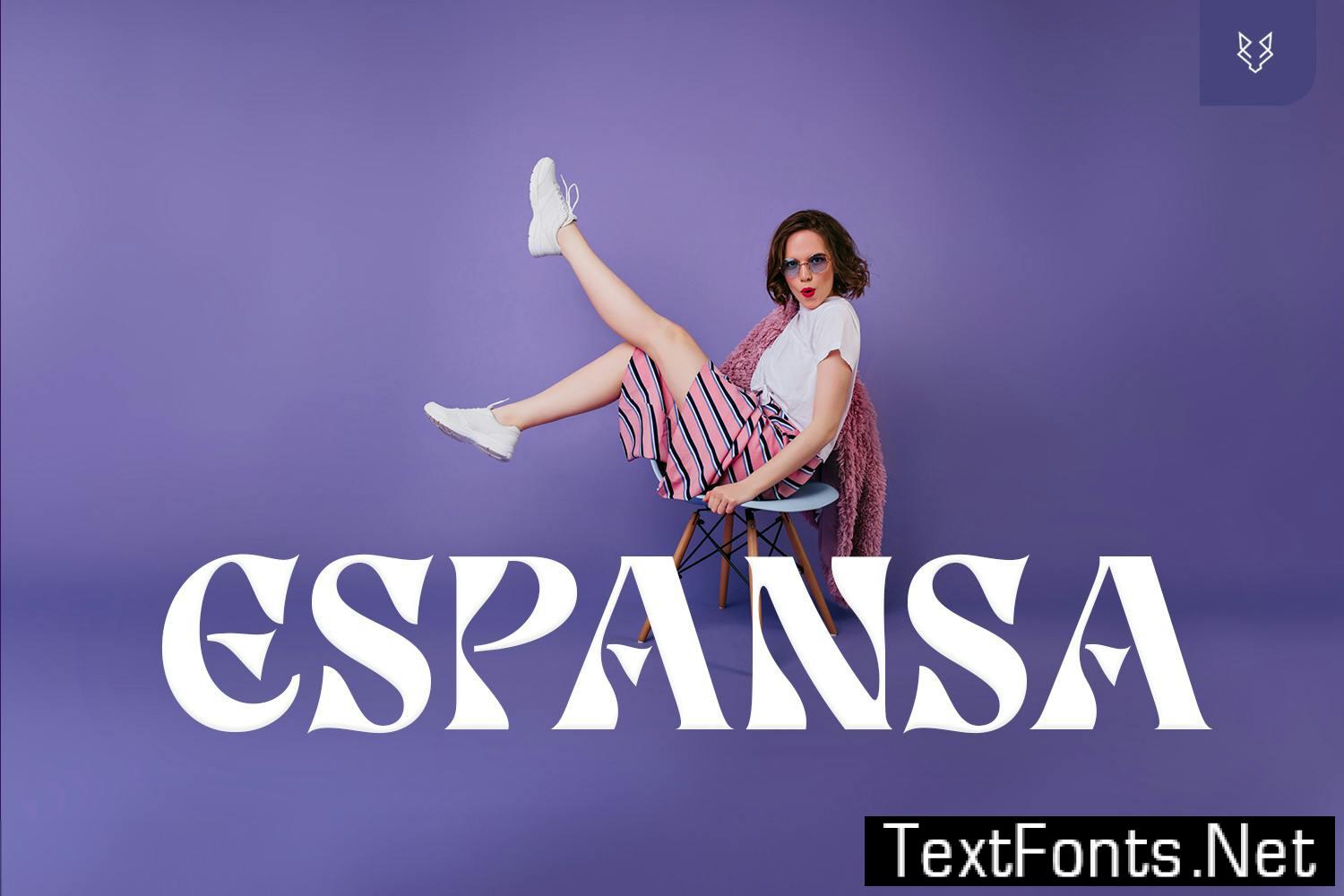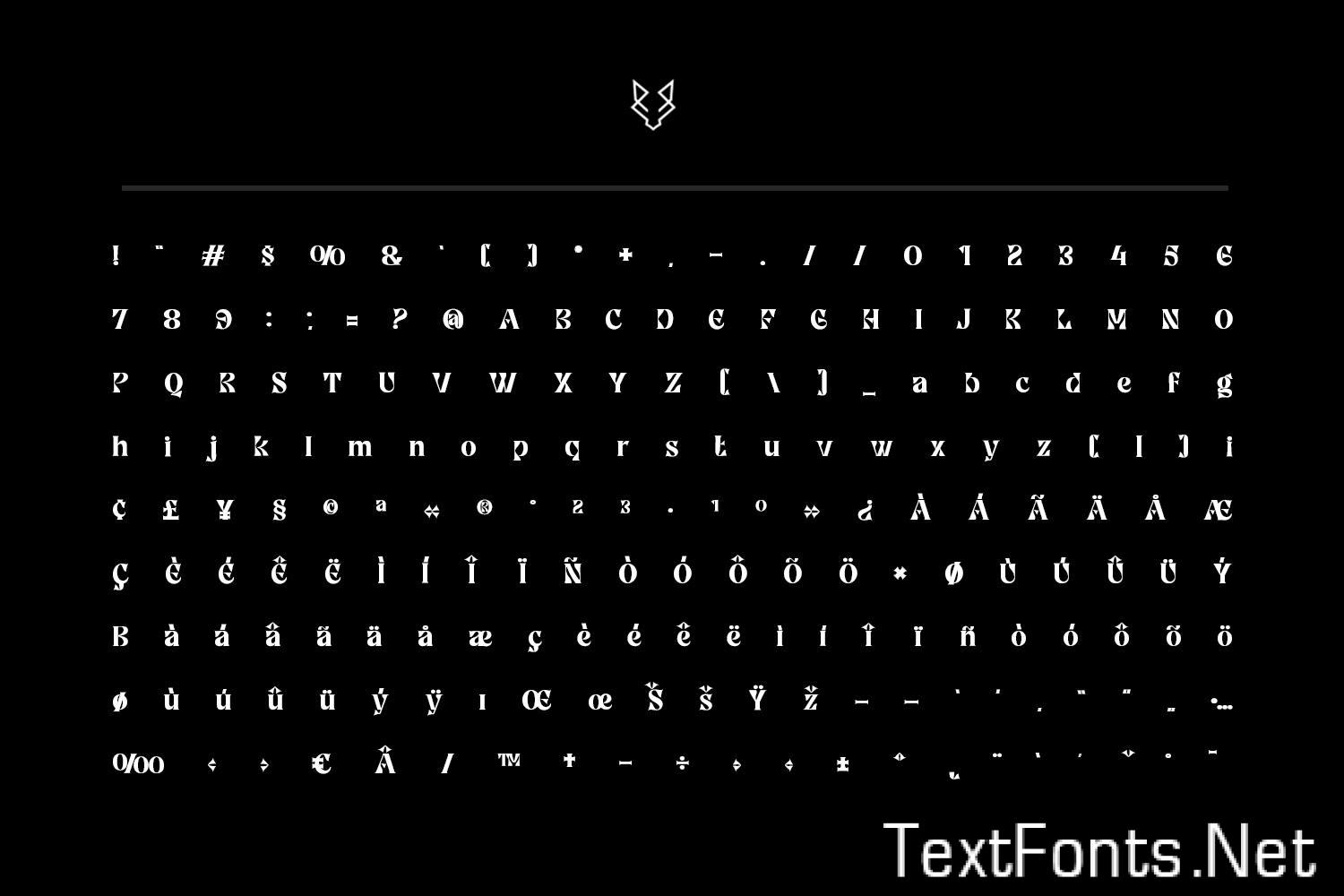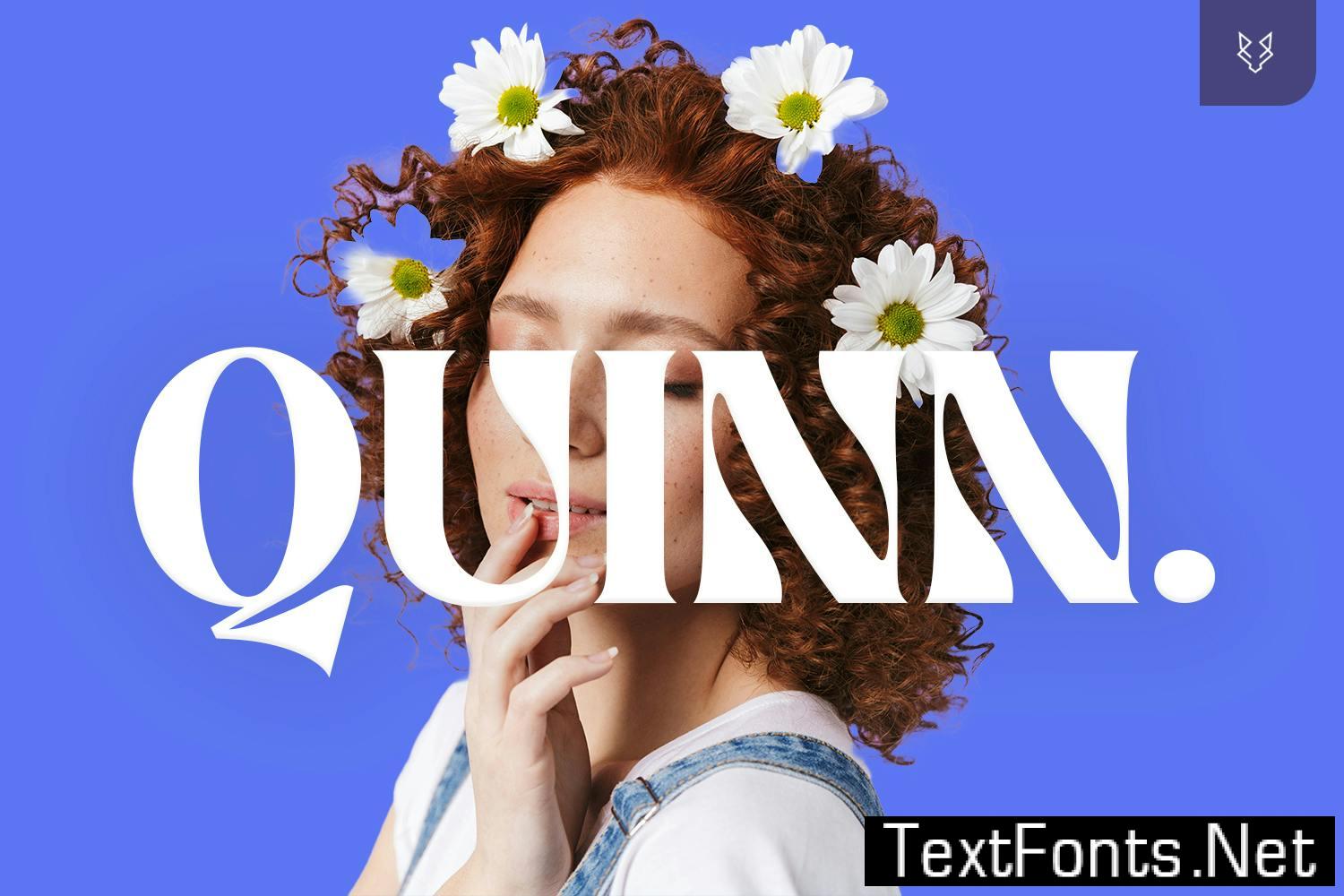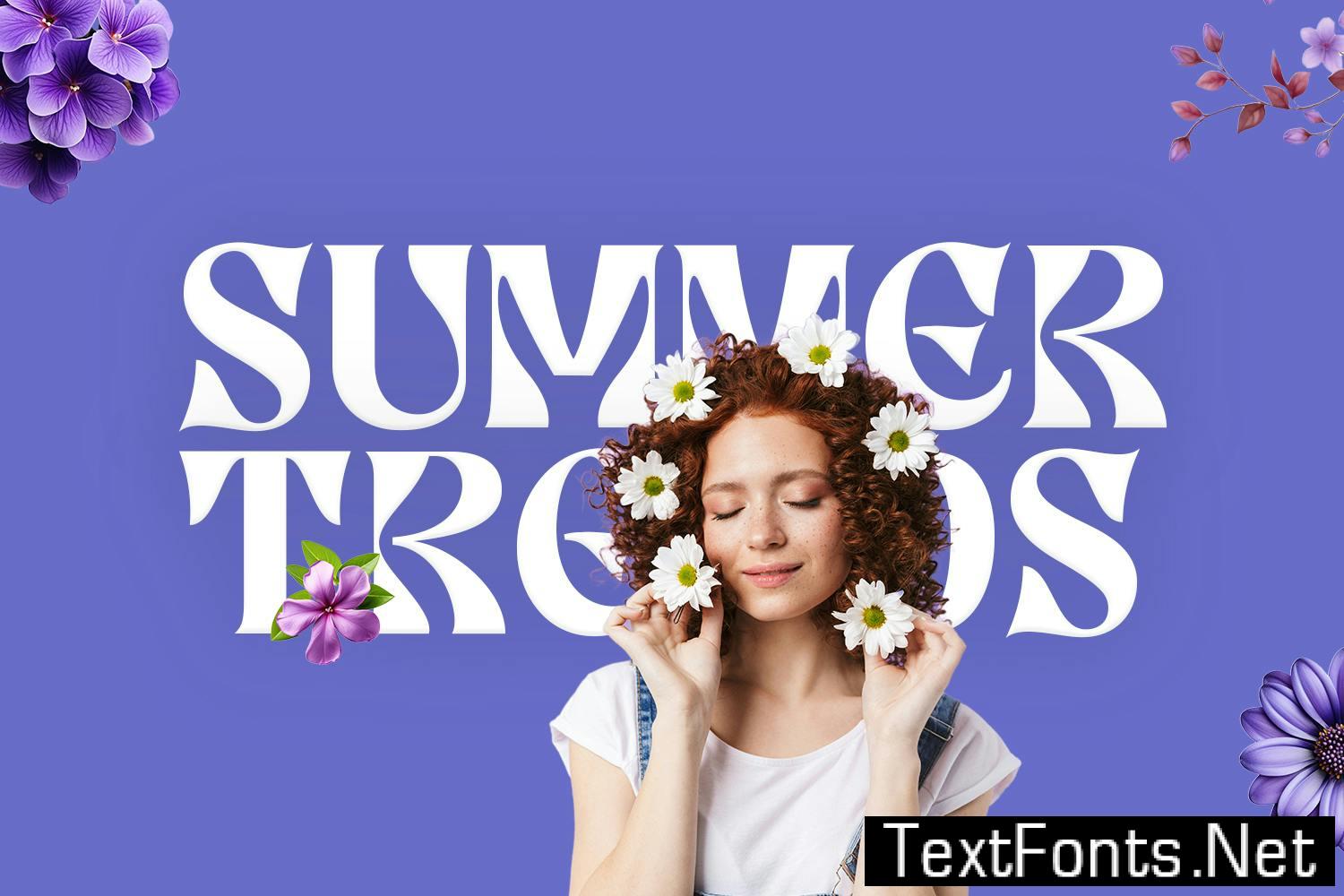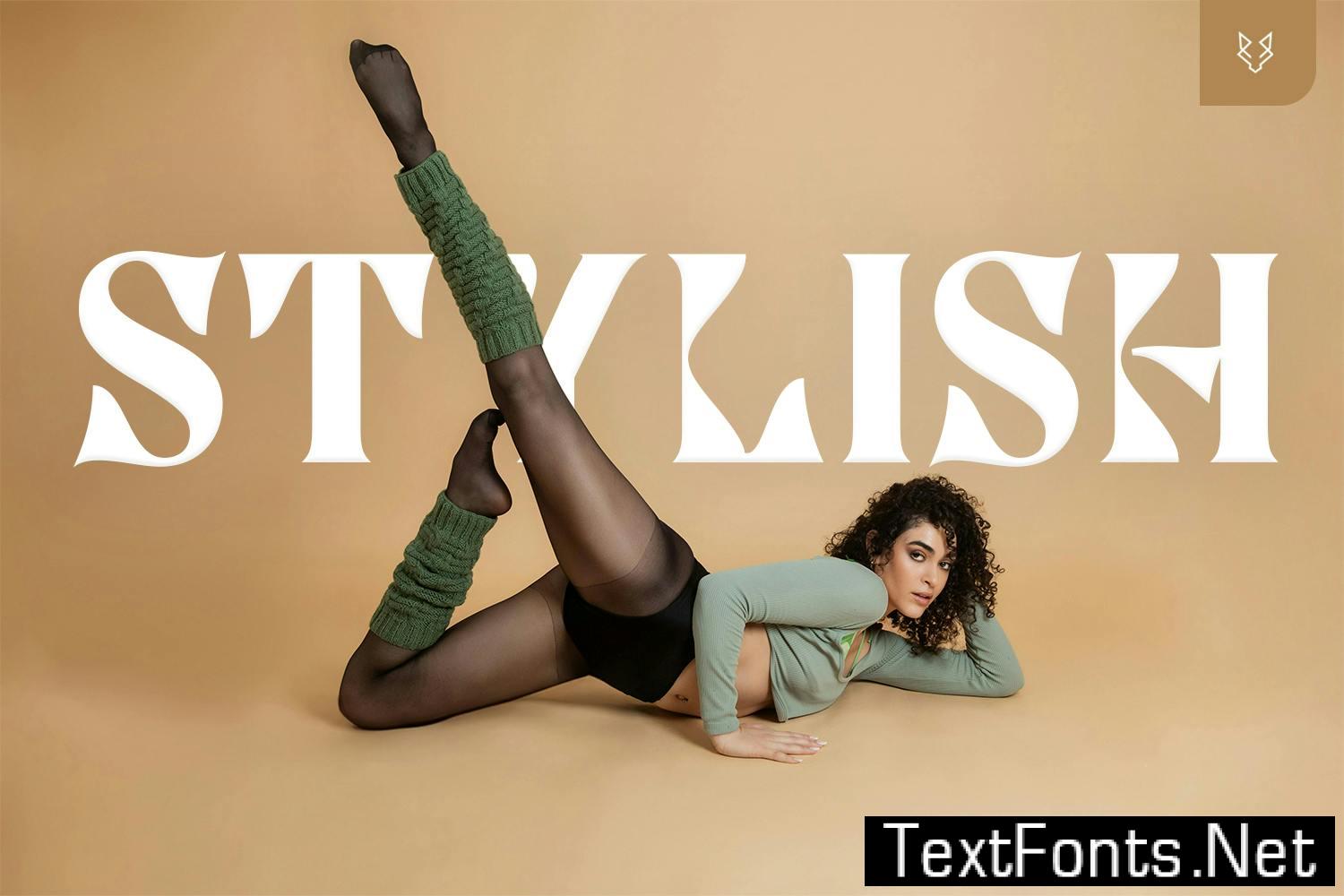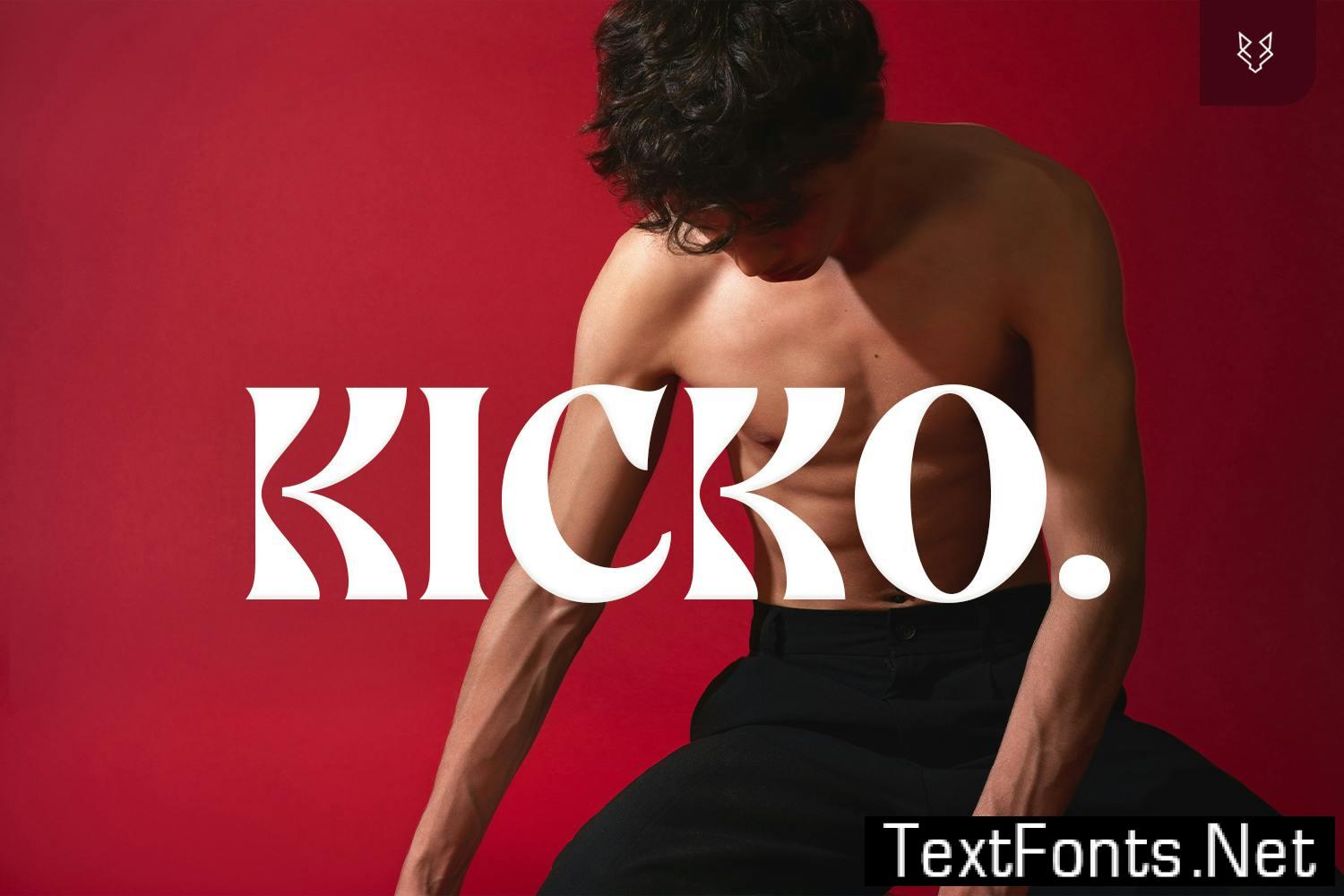
Espansa Branding Typeface 2HNRBTV
Introducing **”Espansa,”** a font meticulously crafted by Foxtype to redefine the essence of modernity in typography. Tailored specifically for **fashion brands, posters, and magazines**, Espansa embodies a harmonious fusion of sleek aesthetics and timeless elegance.
With its clean lines and precise curves, Espansa captivates the eye and commands attention, making it the perfect choice for brands aiming to convey sophistication and style. Each letter is meticulously designed to ensure optimal legibility while exuding an unmistakable sense of refinement.
Espansa’s versatility shines through in both digital and print media, effortlessly enhancing the visual impact of any project it graces. Whether adorning the pages of high-end fashion magazines or commanding attention on urban posters, this font stands as a testament to modern design at its finest.
Elevate your brand identity and captivate your audience with Espansa – where every letter tells a story of beauty and grace, and where modernity meets timeless allure.